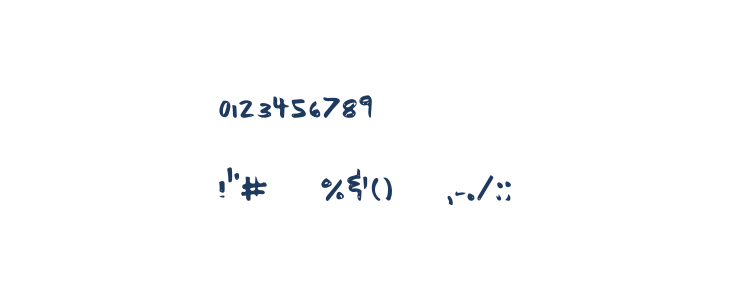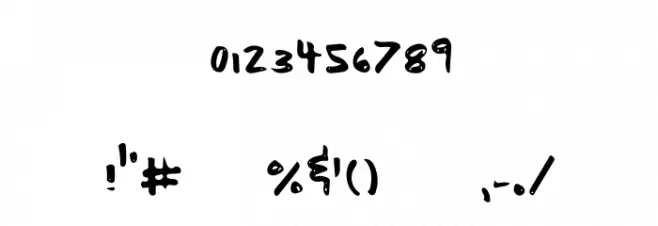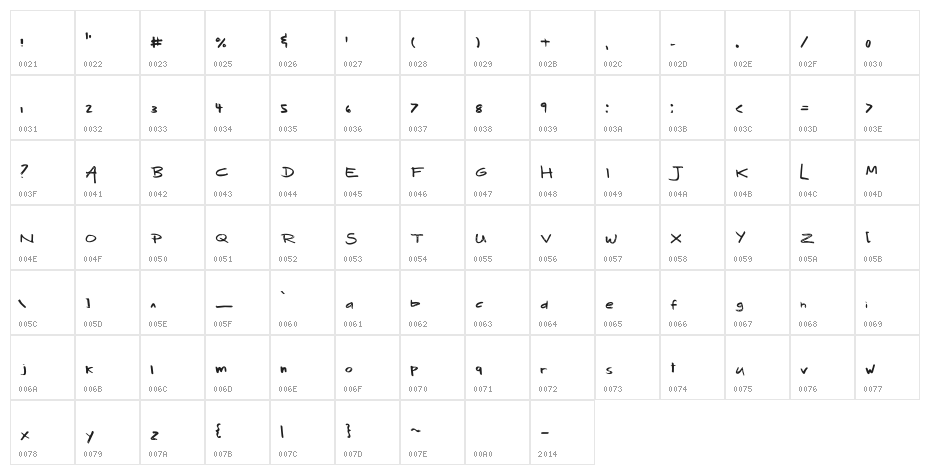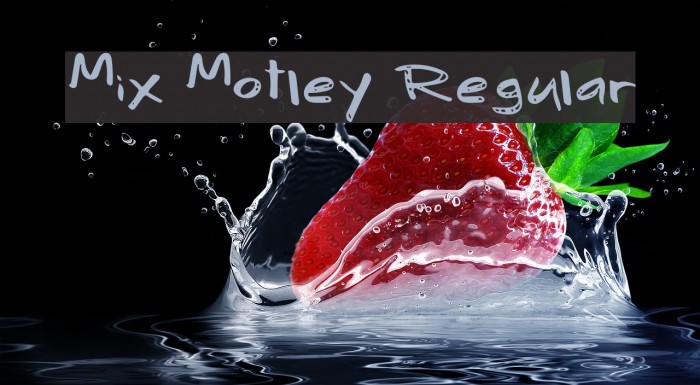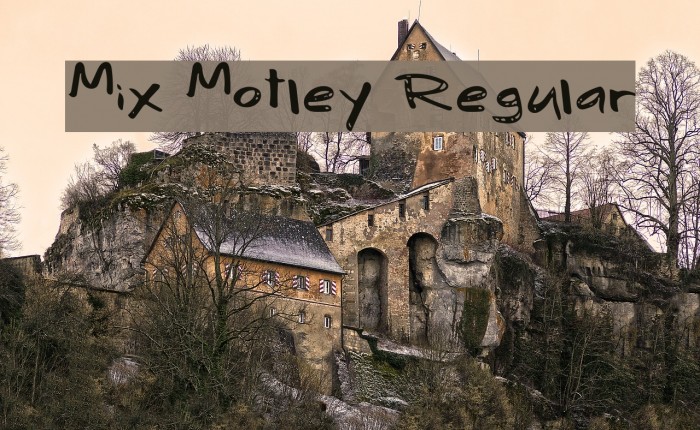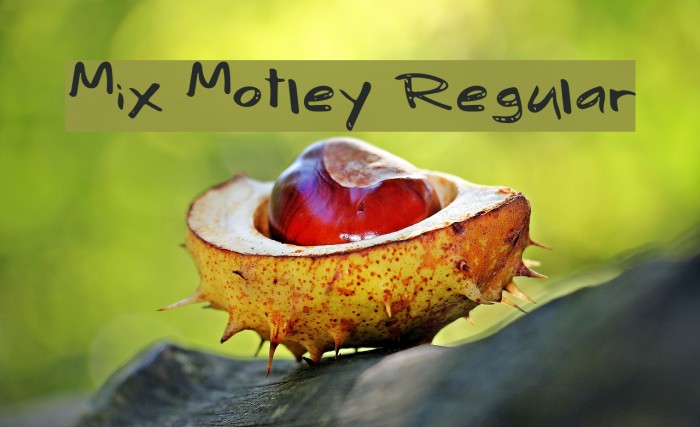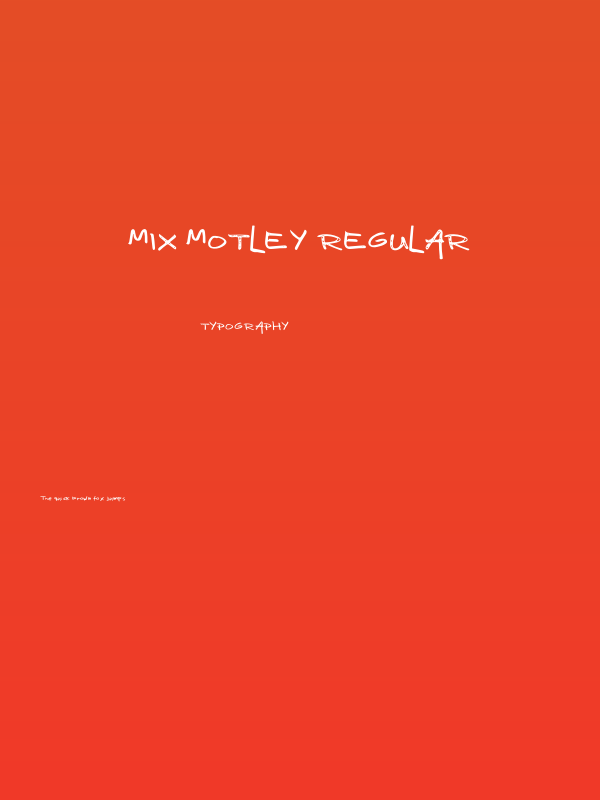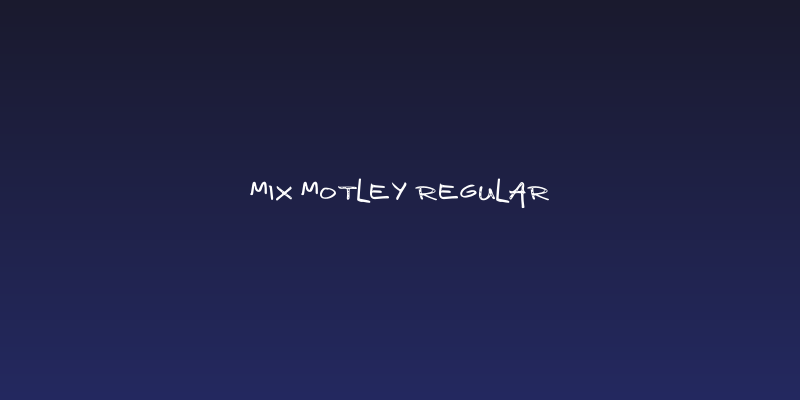
Mix Motley Regular Font
Mix Motley Regular Description
This font features a playful and dynamic handwritten style, characterized by its irregular and slightly whimsical letterforms. The strokes vary in thickness, giving it a lively and energetic appearance. The uppercase letters are bold and assertive, while the lowercase letters maintain a casual and approachable feel. Numbers and special characters are crafted with the same playful touch, making them stand out in any design. The overall impression is one of creativity and spontaneity, suitable for projects that require a personal and informal touch.
| Overall Style | Playful, Creative |
| Proposed Projects | Ideal for greeting cards, children's books, casual branding, and creative posters. |